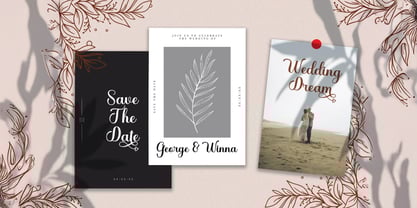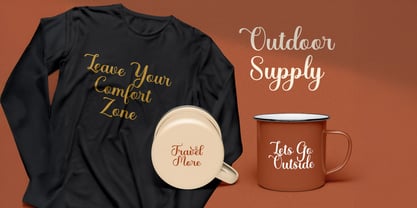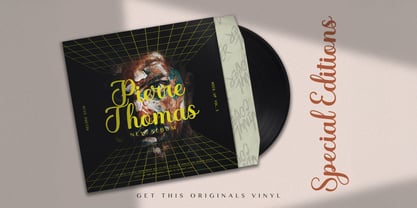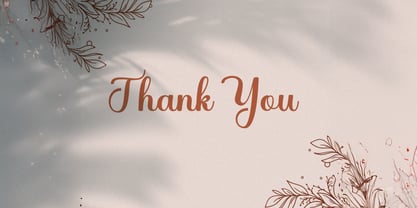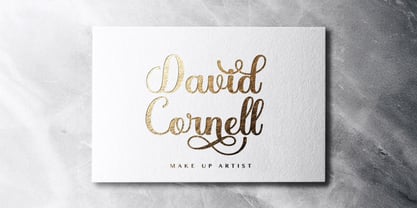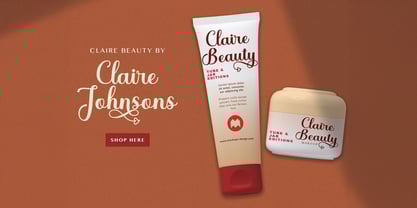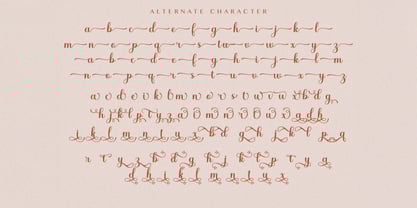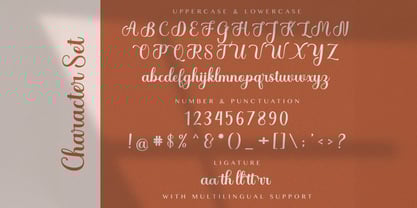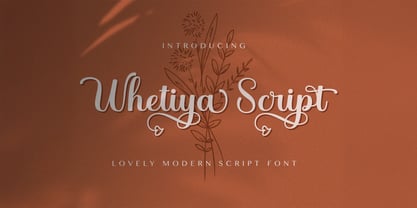
Whetiya Script
by Stringlabs Creative Studio
The Whetiya Script Font Family was designed by Virgiawan Listanto and published by Stringlabs Creative Studio. Whetiya Script contains 1 styles. More about this family
Whetiya is a beautifully elegant script font designed to capture the essence of love, romance, and warmth. With its flowing, delicate curves and graceful letterforms, Whetiya adds a personal, heartfelt touch to any project. Perfect for weddings, love letters, greeting cards, and romantic branding, this font exudes charm and sophistication, making it ideal for designs that celebrate affection and connection.
Designers: Virgiawan Listanto
Foundry: Stringlabs Creative Studio